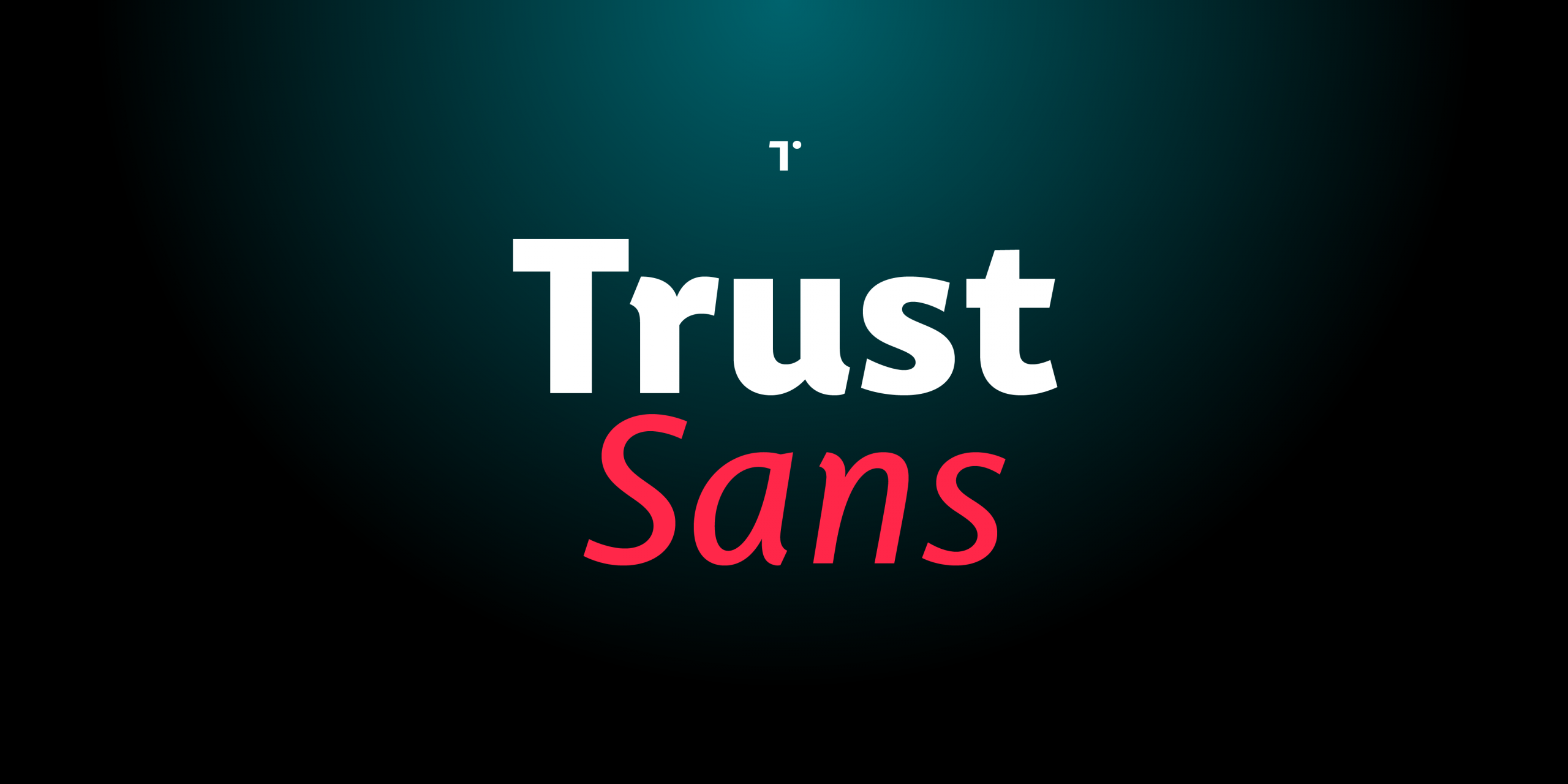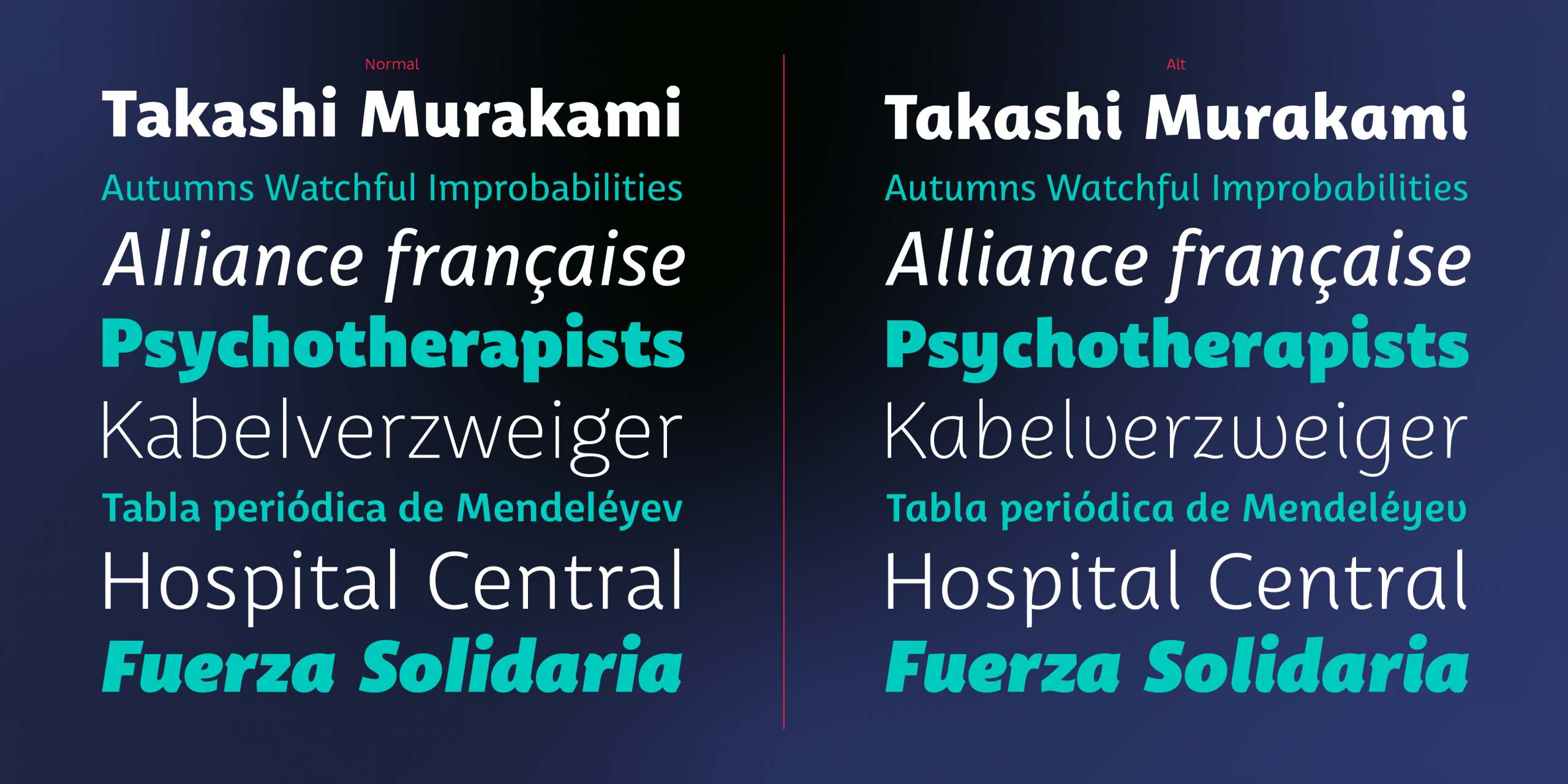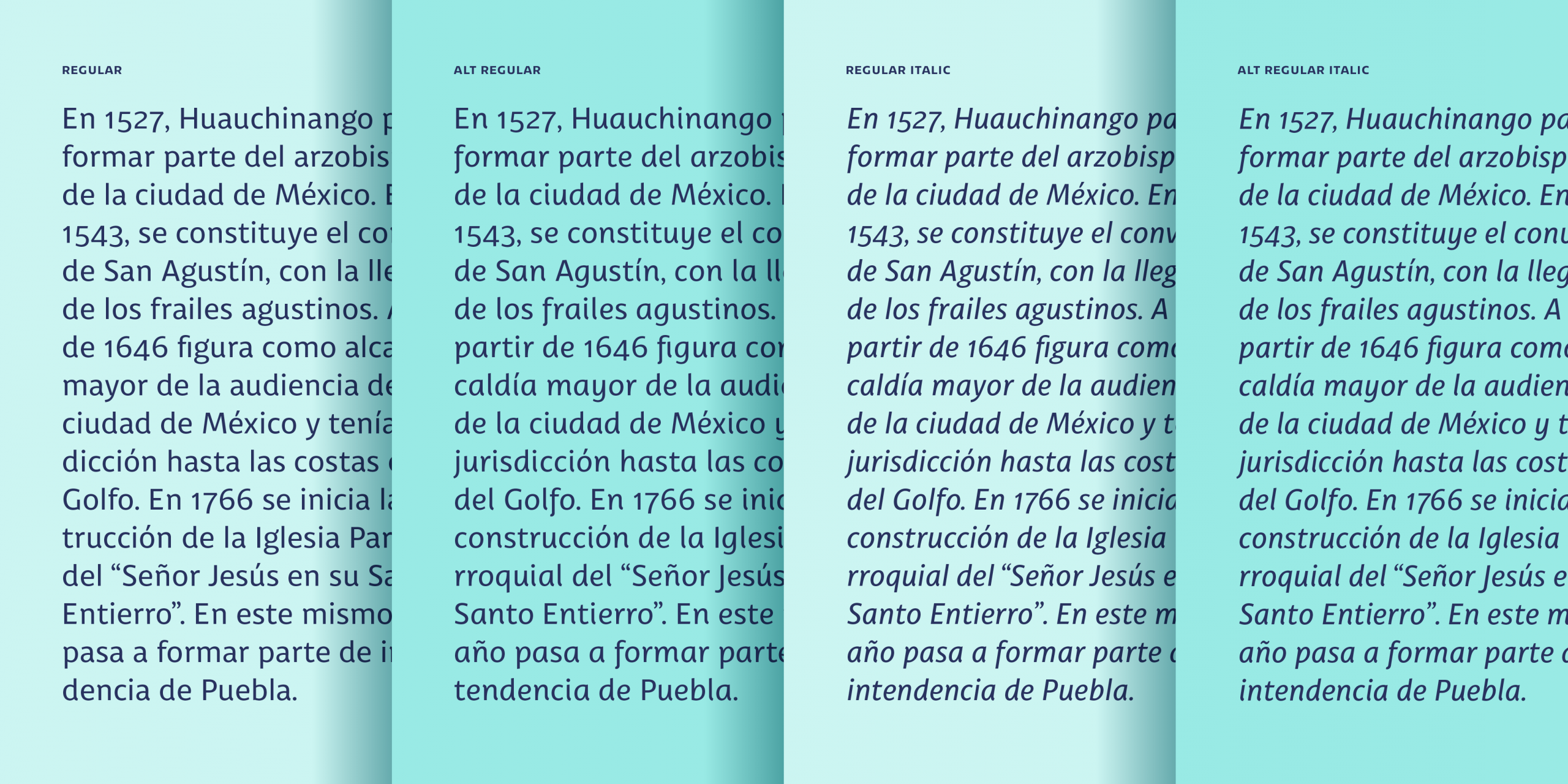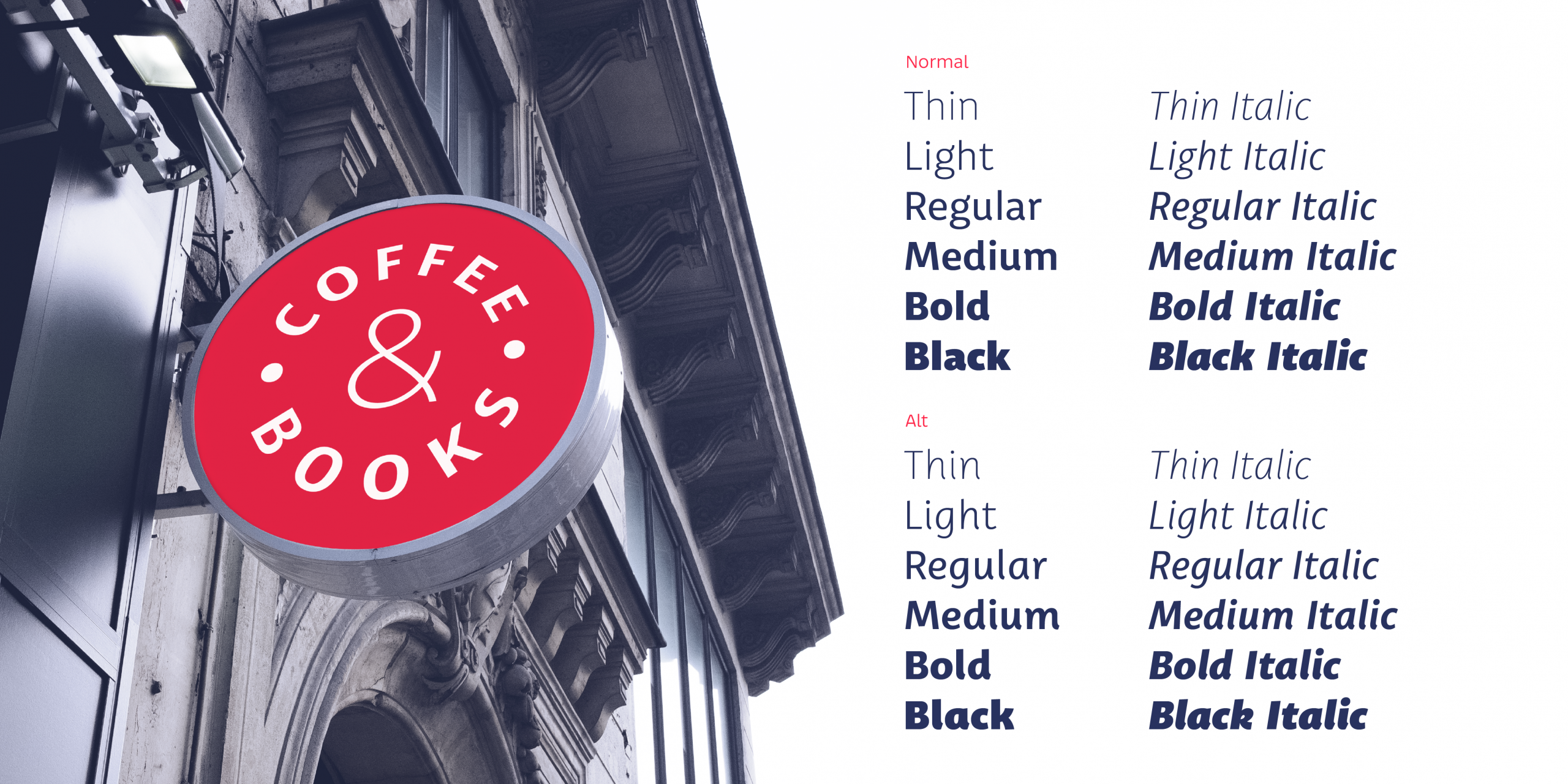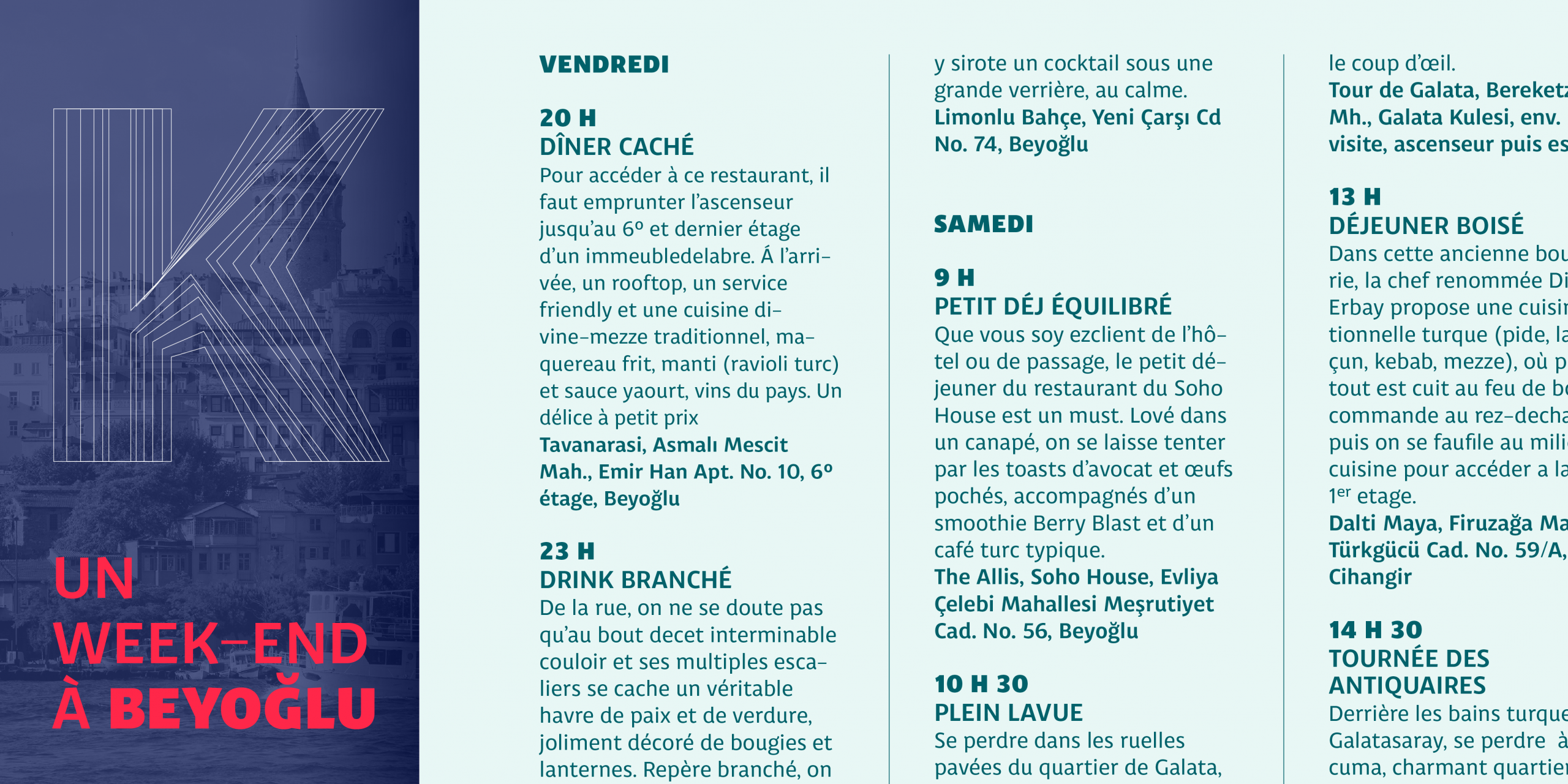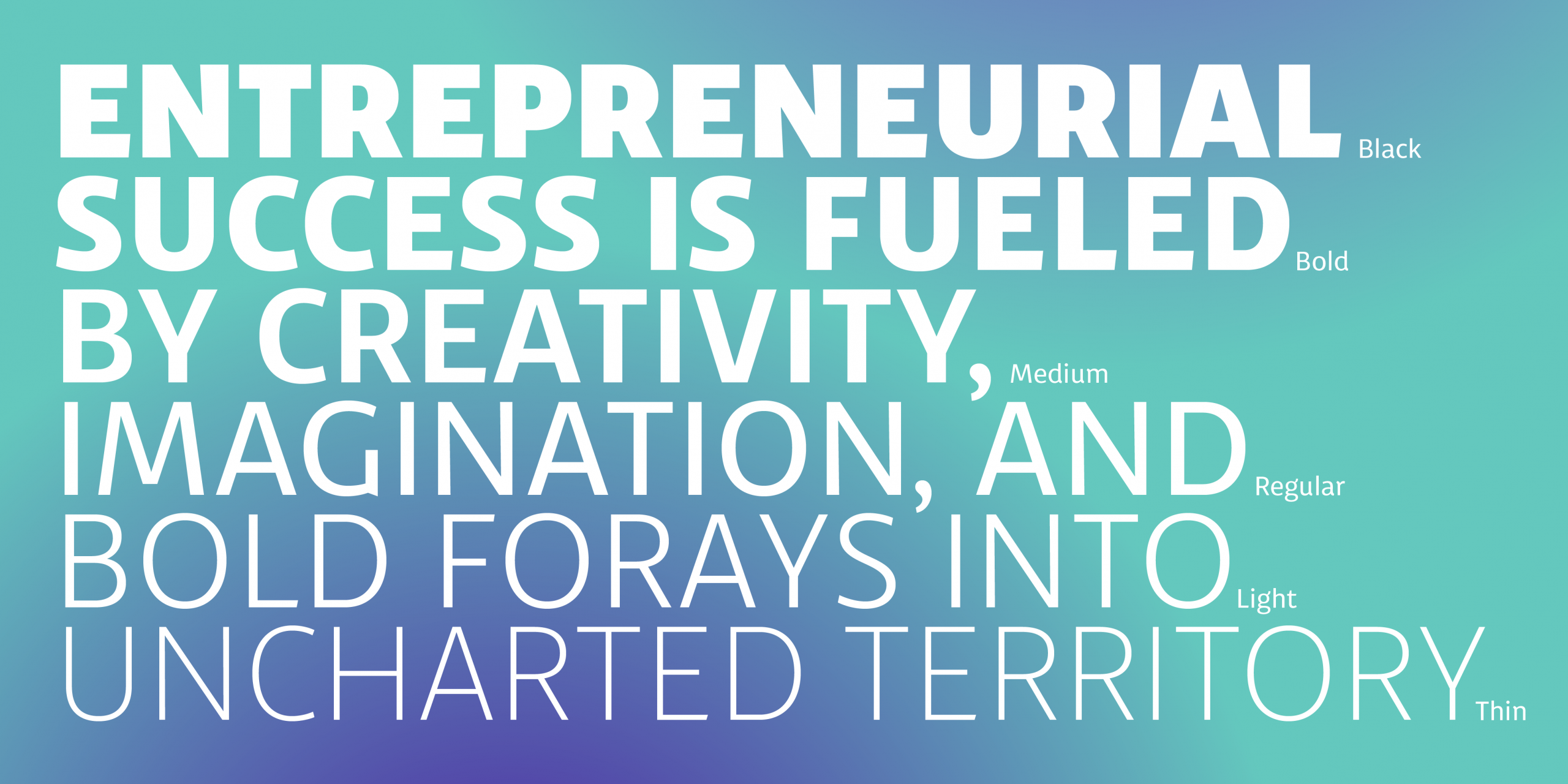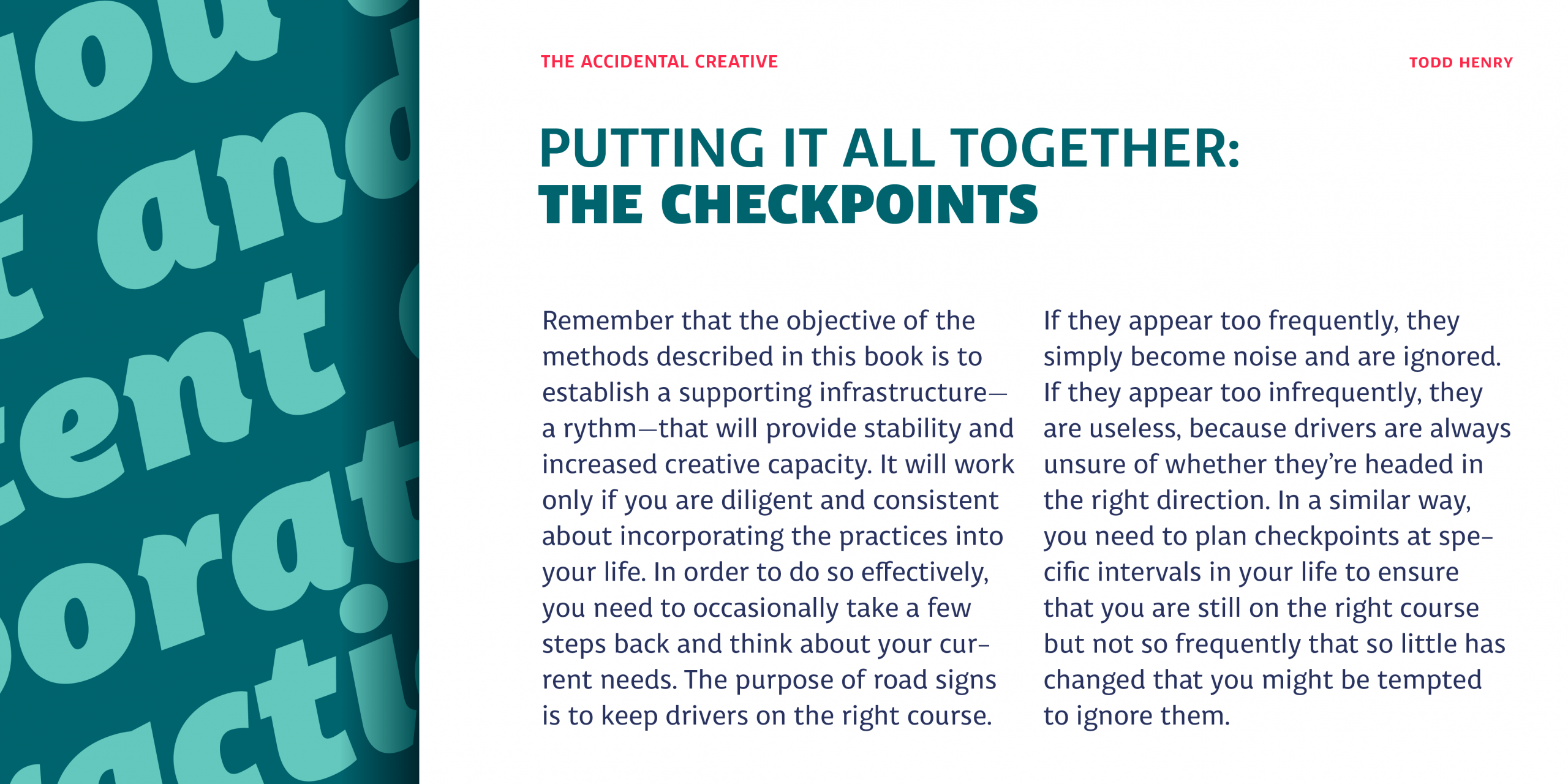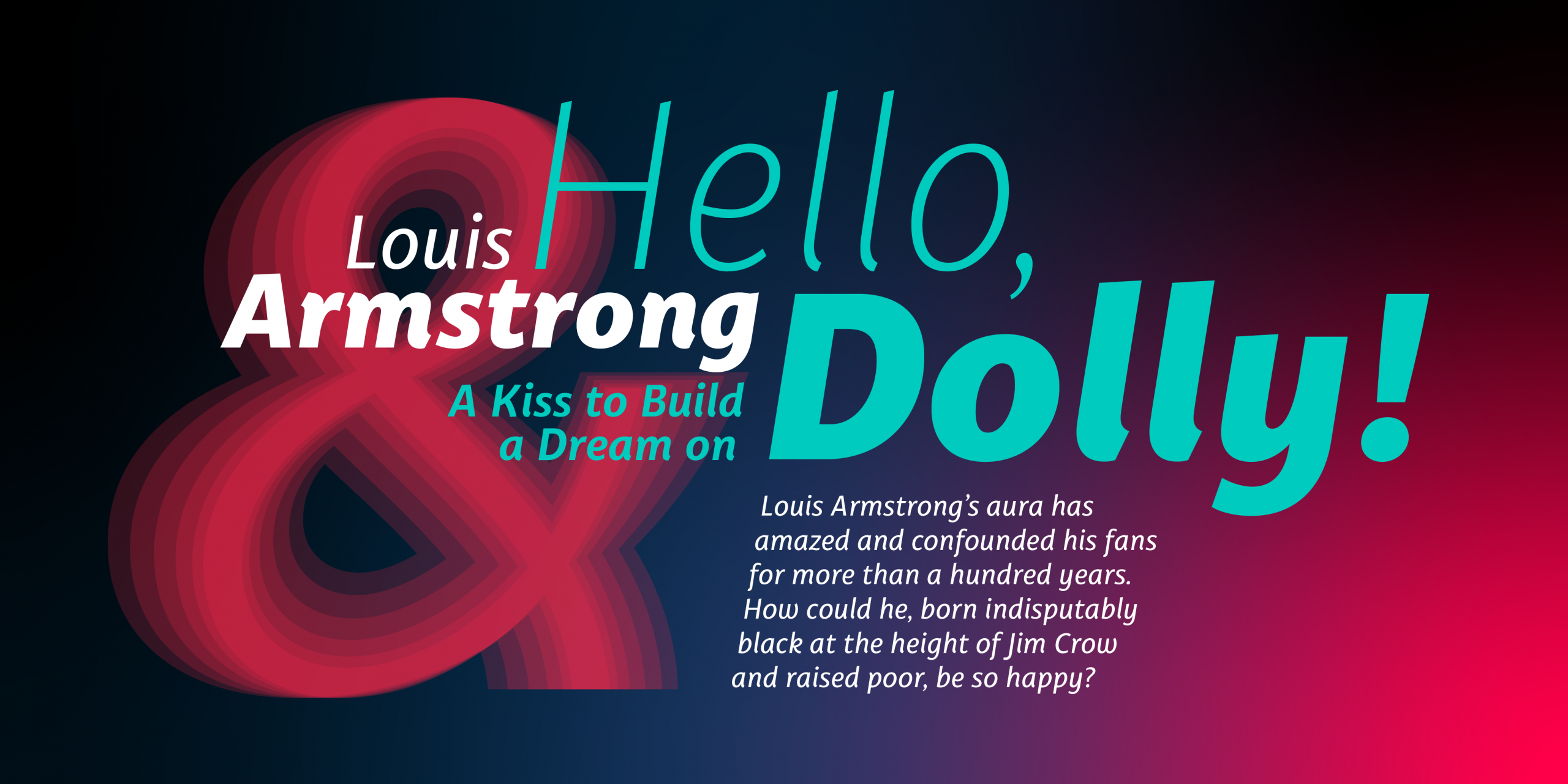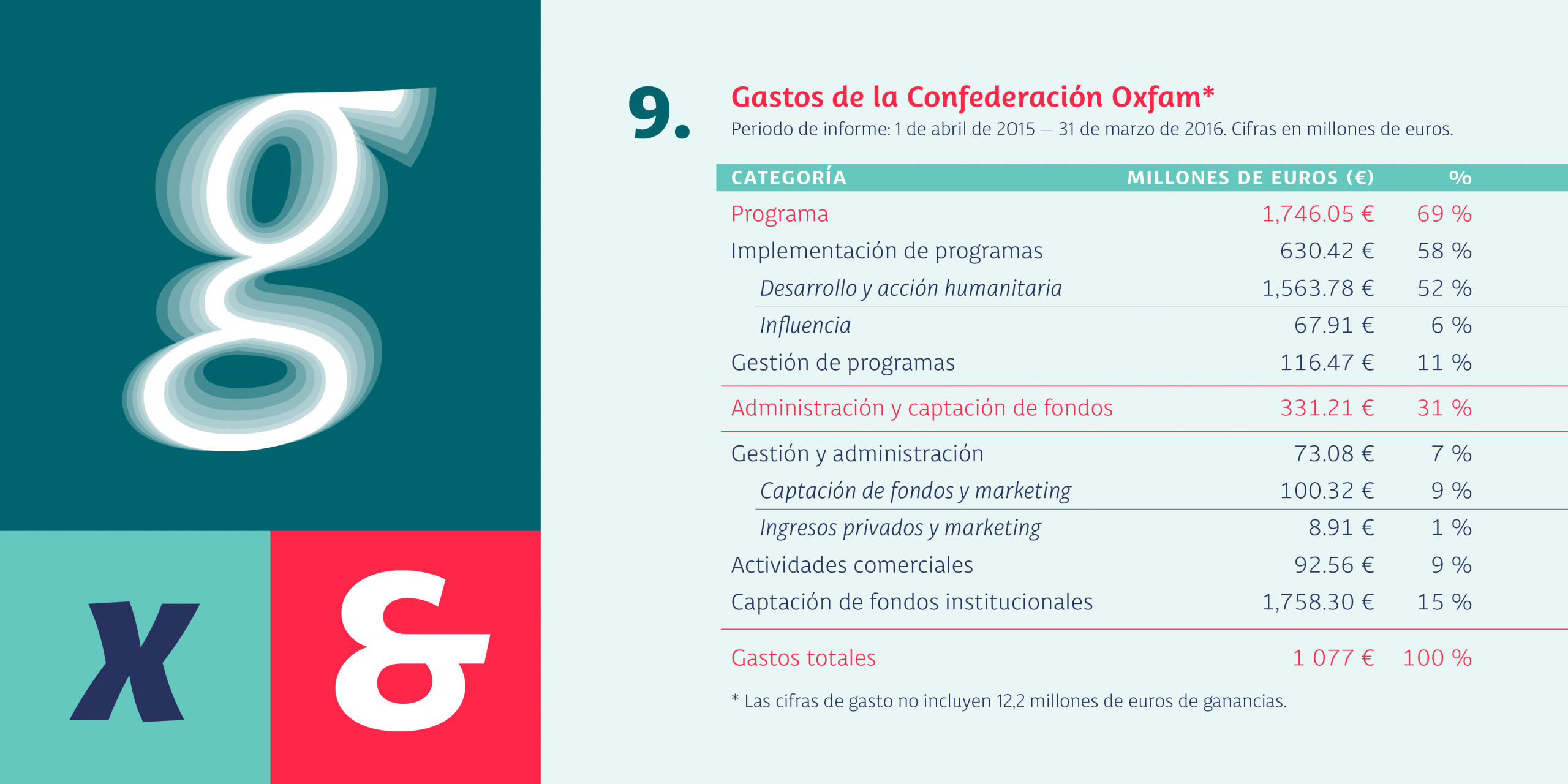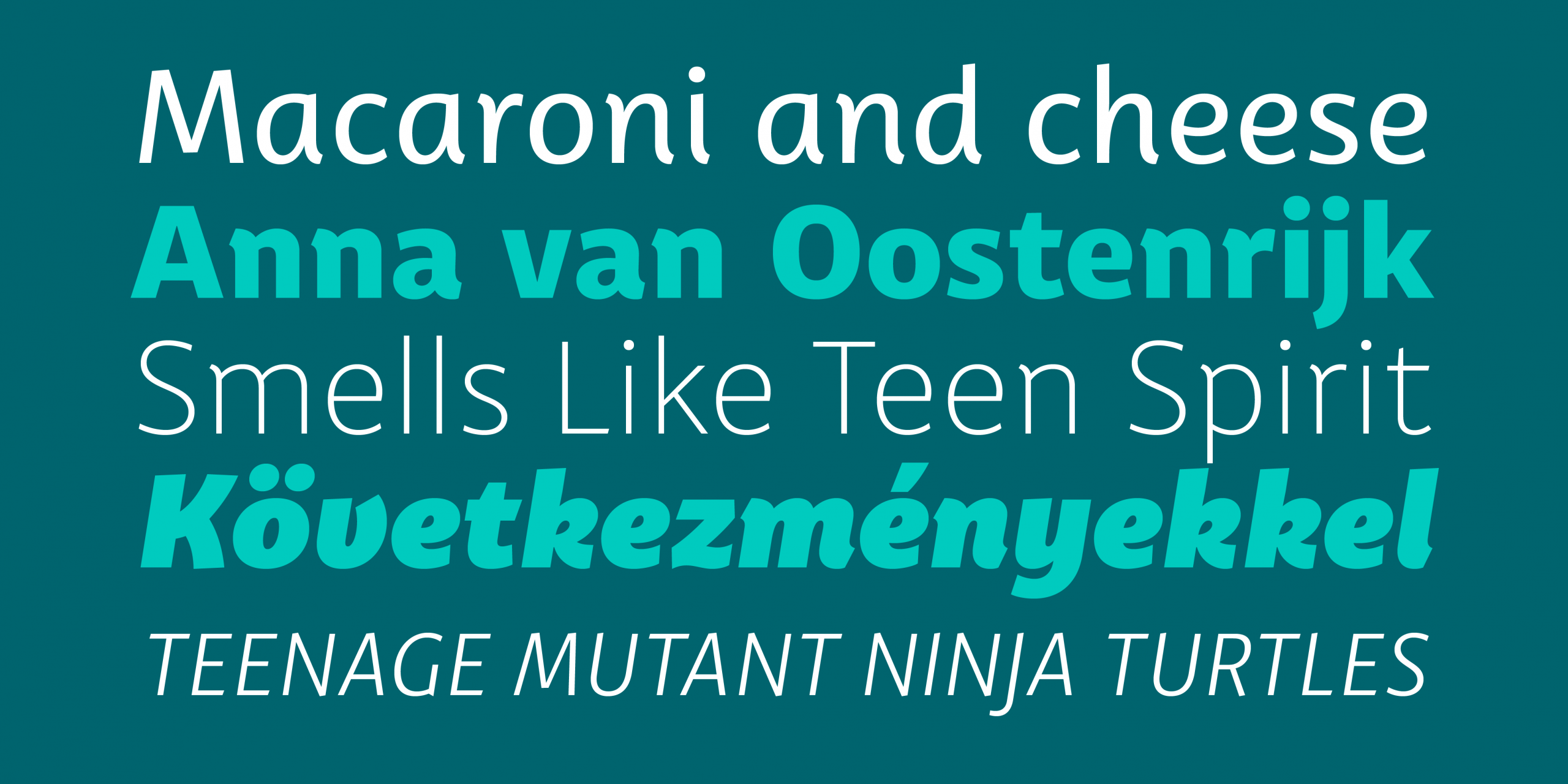
Trust Sans
A Humanistic Typeface Designed for Corporate Identity
Trust Sans is a friendly typeface with a flowing ductus and humanistic construction, designed to help designers meet the challenges of everyday life.
A Friendly Humanistic Typeface
Trust Sans was specially designed for corporate identity.
Its flowing ductus and humanistic construction give the typeface a friendly character while providing the versatility needed for everyday design applications.
Trust Sans
The Standard family offers a more formal typographic expression, designed for applications that require a clear and professional character.
Trust Sans Alt
The Alternative family provides a more casual expression, expanding the range of typographic possibilities within the Trust Sans system.
Trust Sans
Trust Sans Alt
Formal or Casual. One Trust Sans System.
Two Complementary Subfamilies
Trust Sans — two complementary subfamilies, 6 weights each, true italics, and support for more than 200 Latin-based languages. Trust Sans is composed of two complementary subfamilies: the Standard, which is more formal, and the Alternative, which is more casual.
Together, they provide different typographic voices while maintaining the character of the Trust Sans system.
Extensive Character Set & 200+ Languages
Trust Sans includes an extensive character set supporting more than 200 Latin-based languages.
Its OpenType features include Small Caps, various numerals, case-sensitive forms, contextual and discretionary ligatures, and more.
Designed for Corporate & Editorial Applications
Trust Sans is ideal for a wide range of applications, including editorial design, immersive text, corporate identity, branding, and packaging.
Its two complementary subfamilies allow designers to adapt the typographic voice to different contexts while maintaining a cohesive system.